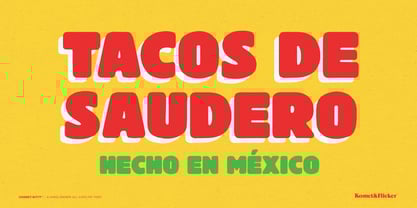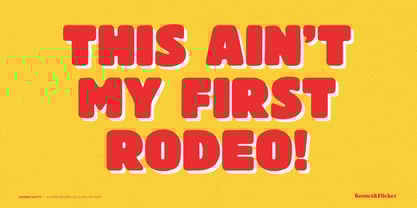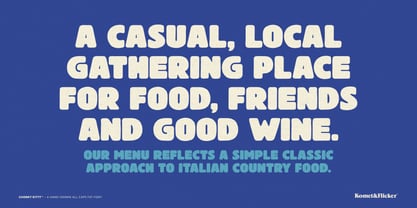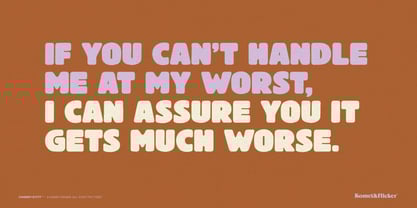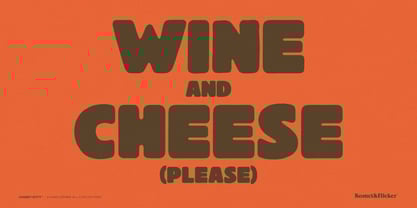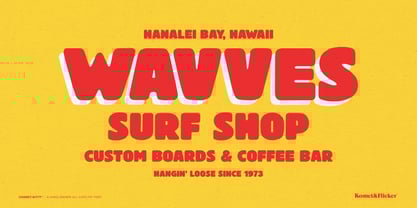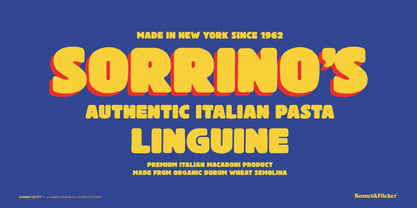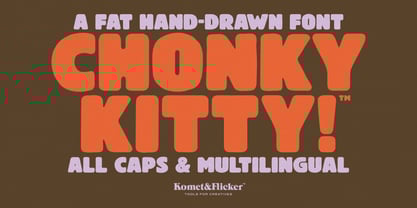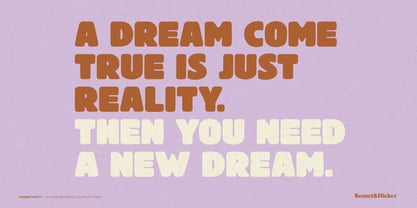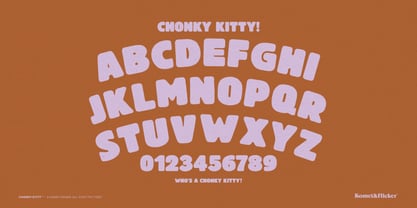
Chonky Kitty
by Komet & Flicker
The Chonky Kitty Font Family was designed by David Phillips and published by Komet & Flicker. Chonky Kitty contains 1 styles. More about this family
Make your words pop with Chonky Kitty!, a fun-loving, bold all-caps font with a friendly, approachable vibe. Designed with thick, rounded letters and a soft, playful feel, this typeface brings warmth and personality to everything from posters and product packaging to social graphics and handmade logos.
The oversized, bubbly shapes of Chonky Kitty! are perfect for designs that need to attract attention. Plus, it comes with select European multilingual characters, making it a great choice for a range of creative projects.
If you're looking for something chunky, cheerful, and full of charm, Chonky Kitty! delivers with style.
• Full A-Z uppercase basic latin characters
• Select European specific characters
• Numbers, punctuation, and select symbols